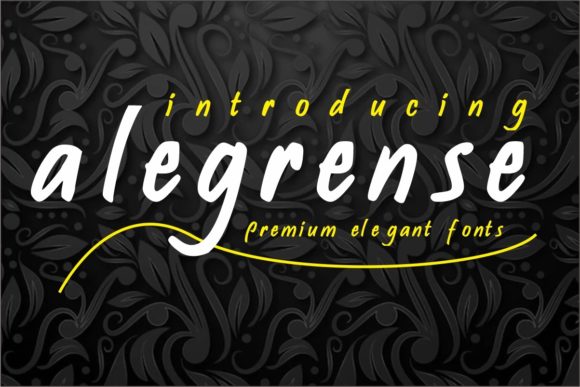
The Alegrense Font: A Timeless Choice for Creative Projects
I’ll never forget the time I was working on a wedding invitation project, and I just couldn’t find the perfect font. My client wanted something elegant, yet playful, and I was determined to deliver. That’s when I stumbled upon the Alegrense font. Its thin and simple script style immediately caught my eye, and I knew I had found the one. In this article, I’ll share my love for Alegrense, its features, and how to make the most of it in your creative projects.
A Personal Review of Alegrense
- ✨ Unique and elegant style: Alegrense has a slightly slashed and voluptuous style that sets it apart from other script fonts.
- ✅ Highly versatile: Perfect for creating gorgeous wedding invitations, beautiful stationary art, engaging social media posts, and more!
- 💕 Emotional connection: The font’s flowing lines and curves evoke a sense of romance and sophistication.
While Alegrense is an amazing font, there are a few things to keep in mind:
- ⚠️ Limited use in body text: Due to its thin and script nature, Alegrense might not be the best choice for long blocks of body text.
- 🤔 Kerning and spacing: As with any font, you might need to adjust kerning and spacing to achieve the perfect look.
The Backstory of Alegrense
Alegrense was designed with love and care by a talented type designer who wanted to create a font that would evoke emotions and romance. The designer’s inspiration came from traditional calligraphy and handwritten scripts, with a modern twist. The result is a font that’s both timeless and trendy.
Q: What is the best use for Alegrense?
A: Alegrense is perfect for creating gorgeous wedding invitations, beautiful stationary art, engaging social media posts, and more!
Q: Is Alegrense a difficult font to read?
A: Alegrense is a script font, and as such, it may be more challenging to read in large blocks of text. However, it’s perfect for headings, titles, and short paragraphs.